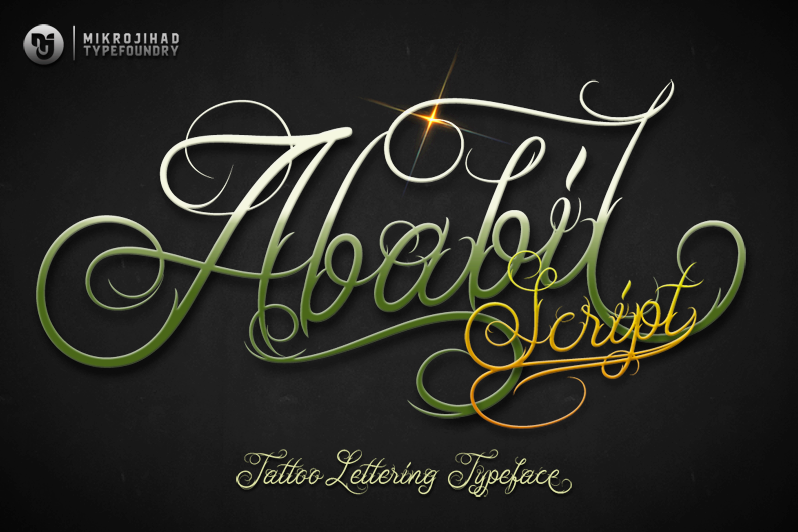
Ababil Script
Ababil Script is inspired from tattoo lettering style.
I made this typeface for unformal/custom typography artwork such as Band Logos, Grunge Art, Tattoo or Music Studio, Indie Flyer/Poster and also great for T-shirt Design.
Ababil script also packed with OpenType Features + PUA Availabale.
Stylistic Alternates, Contextual Alternates and Lots of Ligatures.
The Alternates characters for Uppercase is up to 6 variants.
And for the Lowercase is up to 15 Alternatives to choose.
You can Combines all the alternates one to another to makes your typography looks great.Just see the preview images for details.